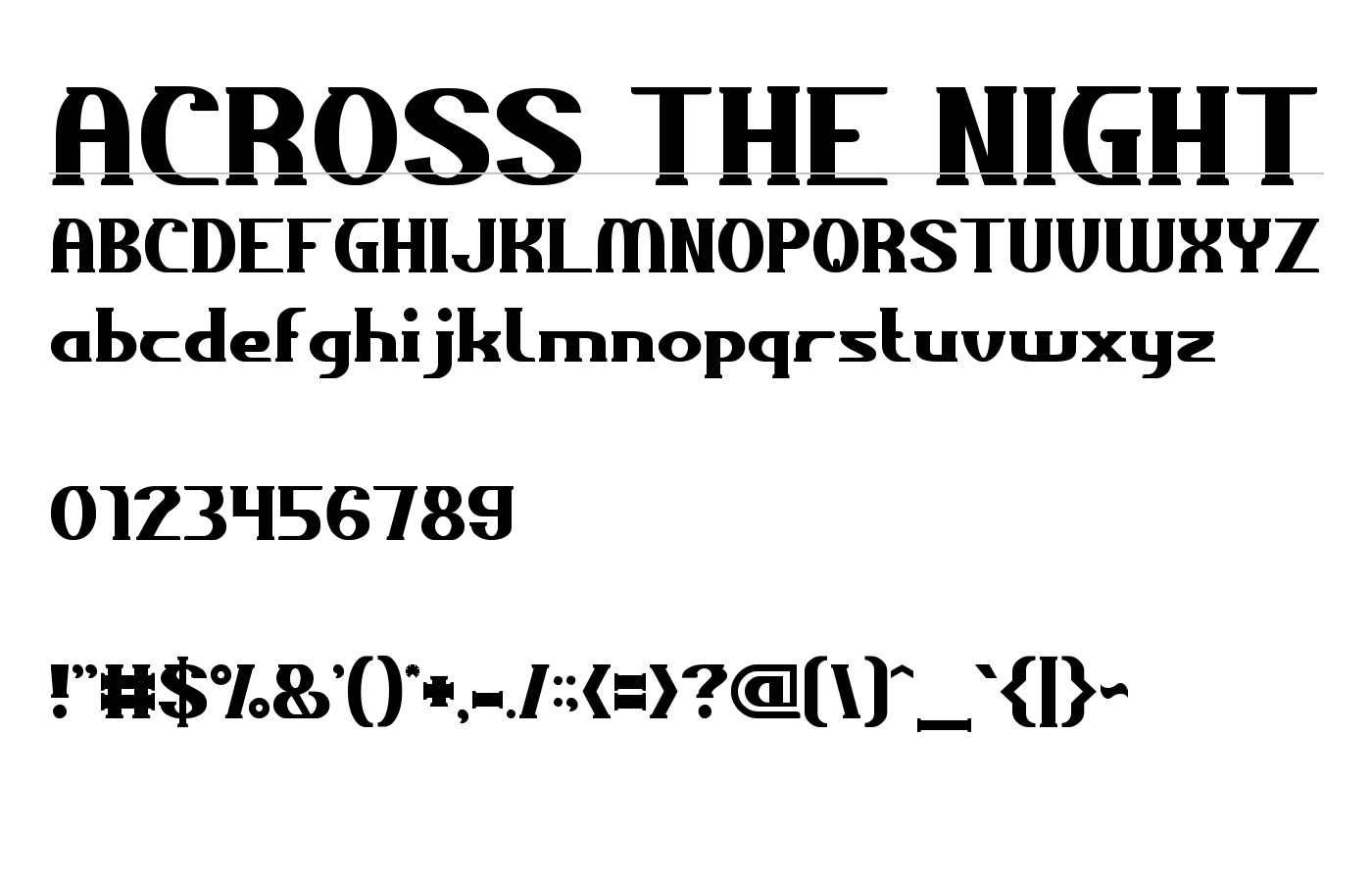
Across the Night is a bold serif font with a vintage-inspired style, featuring strong vertical stress and thick, bracketed serifs that give it a sturdy yet elegant presence. Its tall x-height and distinctive letterforms, like the single-story ‘a’ and unique ‘Q’ tail, make it ideal for eye-catching headlines and branding with a classic, slightly gothic flair. This font works beautifully for posters, logos, and editorial projects that seek a timeless and dramatic impact.
ACROSS THE NIGHT Font
About ACROSS THE NIGHT Font